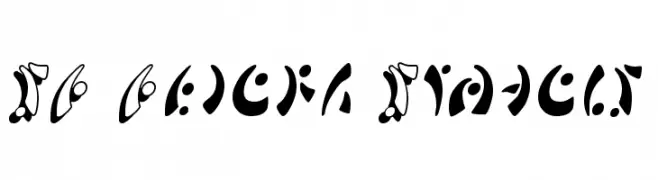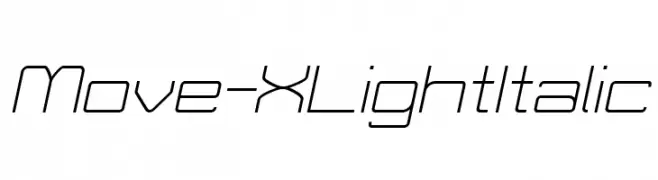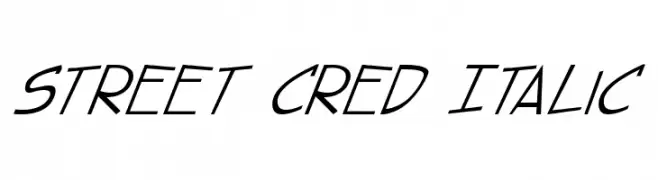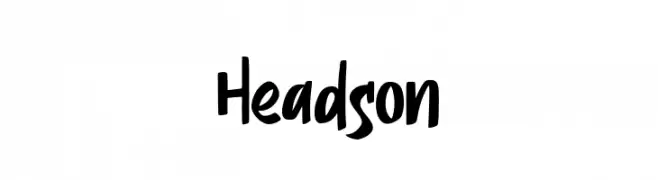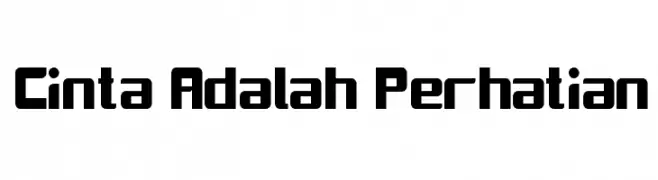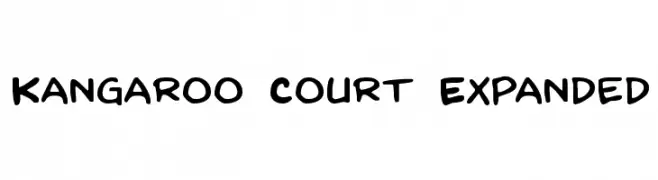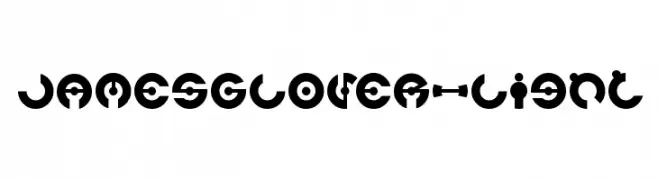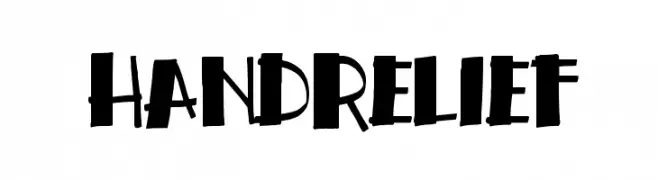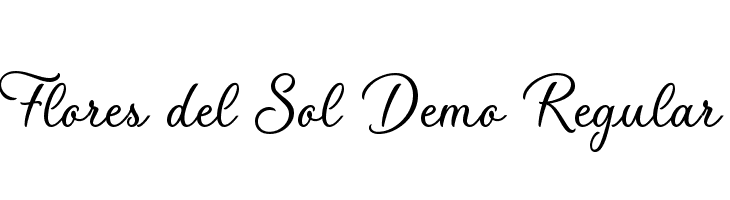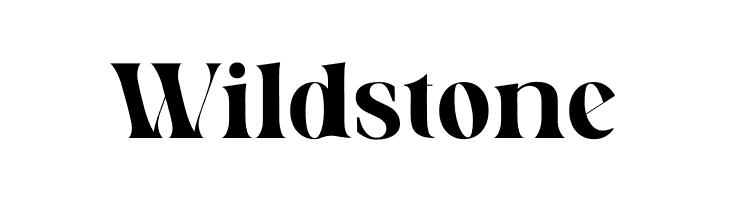
A bold, decorative font with abstract shapes and high contrast, ideal for artistic projects.
A sleek, modern, and slightly italicized font with a light and airy feel.
A dynamic italic font with smooth, slanted letterforms and a modern edge.
An elegant, flowing script font with graceful curves and a dynamic slant.
A bold, playful handwritten font with an energetic and casual style.
A bold, geometric font with a modern and impactful design.
A playful, hand-drawn font with rounded edges and a whimsical style.
A futuristic, geometric font with bold, circular elements and a modern aesthetic.
A bold, playful handwritten font with dynamic, expressive letterforms.
A bold, playful font with a hand-drawn, artistic style.